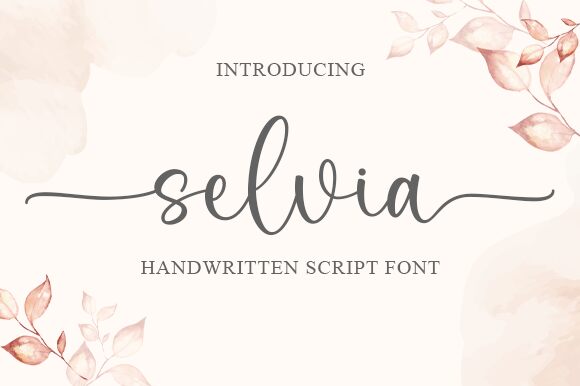
Selvia
Selvia is a charming handwritten font designed by Graphix Line Studio. Its semi-light weight lends it an airy and whimsical feel, perfect for projects that require a touch of playfulness. Selvia's unique letterforms make it suitable for a variety of creative endeavors such as children's book illustrations, greeting cards, and branding materials for businesses that want to convey a friendly and approachable image. Whether you're designing a website or creating physical products, Selvia's handwritten style will add an element of warmth and personality to your project.